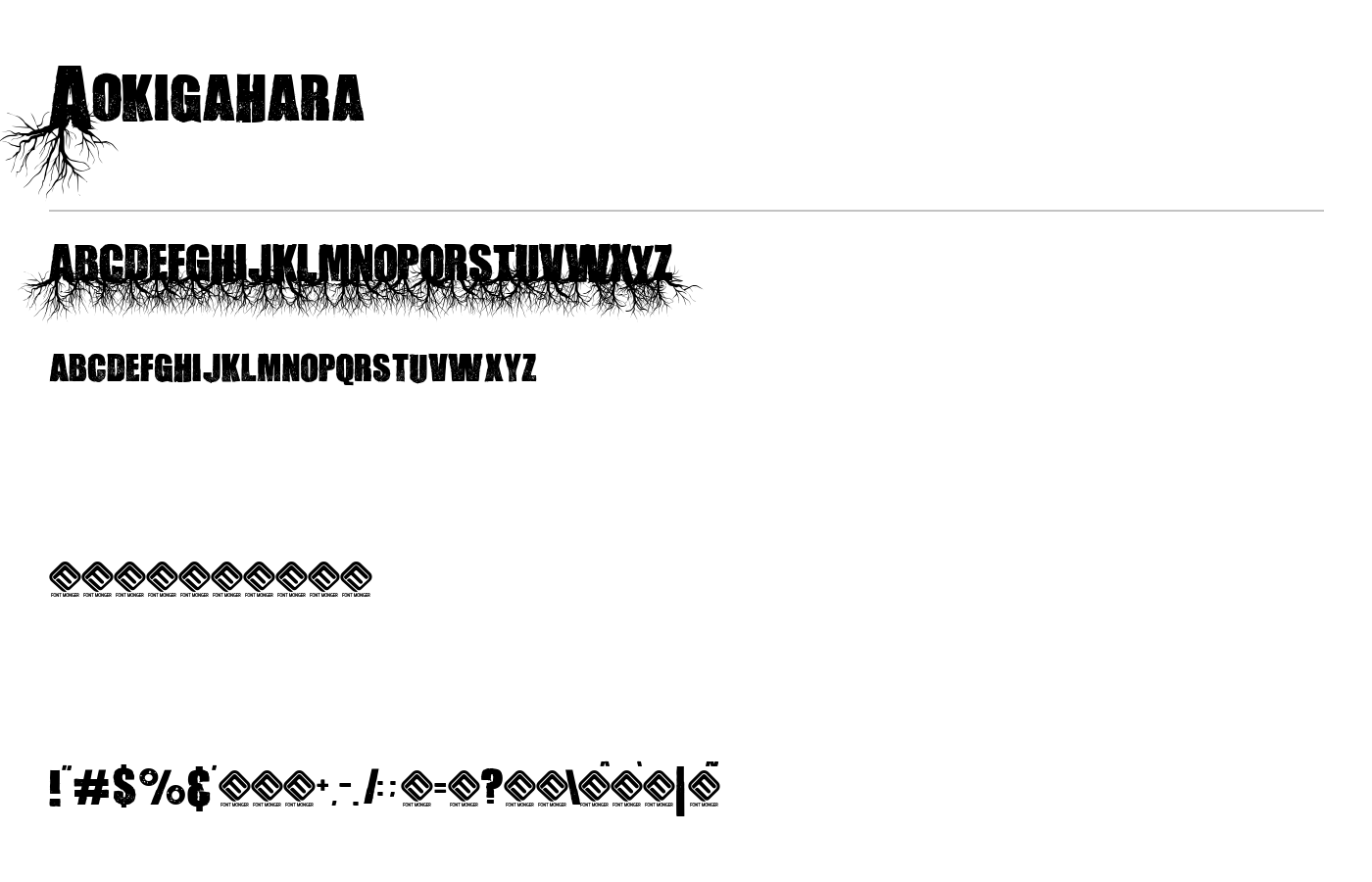
Aokigahara is a bold, condensed sans serif font with a distinctive, eerie style highlighted by intricate root-like extensions that grow from the bottom of each letter, adding a natural, almost haunting texture. Its heavy weight and tight spacing create a strong visual impact, making it ideal for eye-catching headlines, logos, or posters with themes of nature, mystery, or the supernatural. This font works best in designs that require a dramatic, unsettling vibe while maintaining clear readability.
Aokigahara Font
About Aokigahara Font